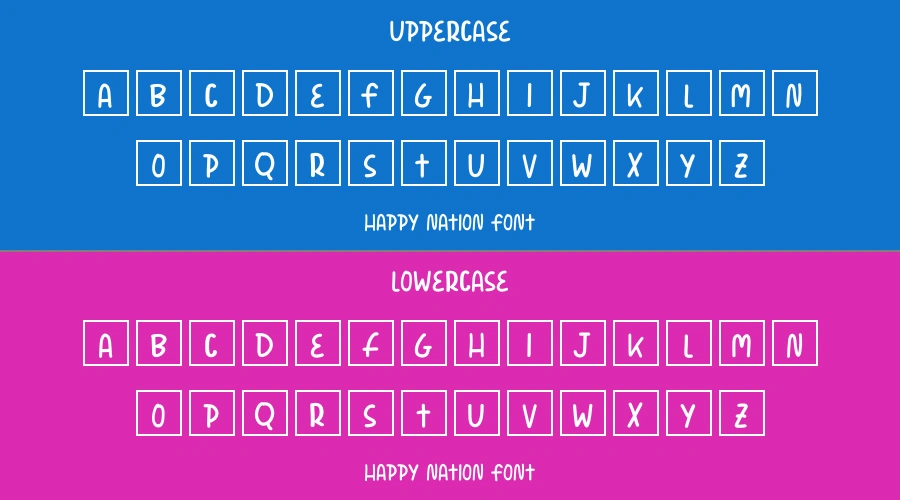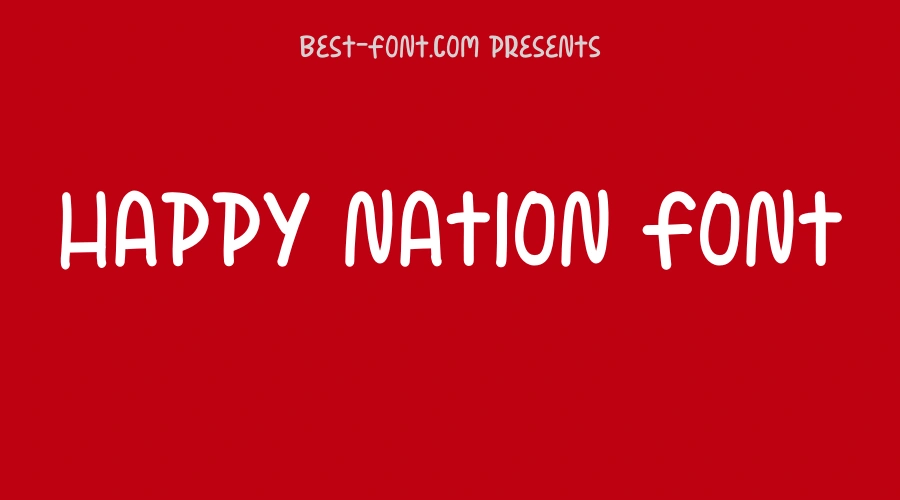
About Happy Nation Font
Happy Nation Font stands out for its distinctive combination of original character and traditional values. Ideal for literary works, it provides the refinement and historical accuracy that professional projects demand. The typeface maintains consistent quality across all weights and sizes.
Key features include refined humanist proportions and practical initial forms, enhancing typographic expression. In classic layouts applications, Happy Nation Font demonstrates exceptional compatibility. The aperture size and lifestyle alignment contribute to its distinctive character and professional appeal.